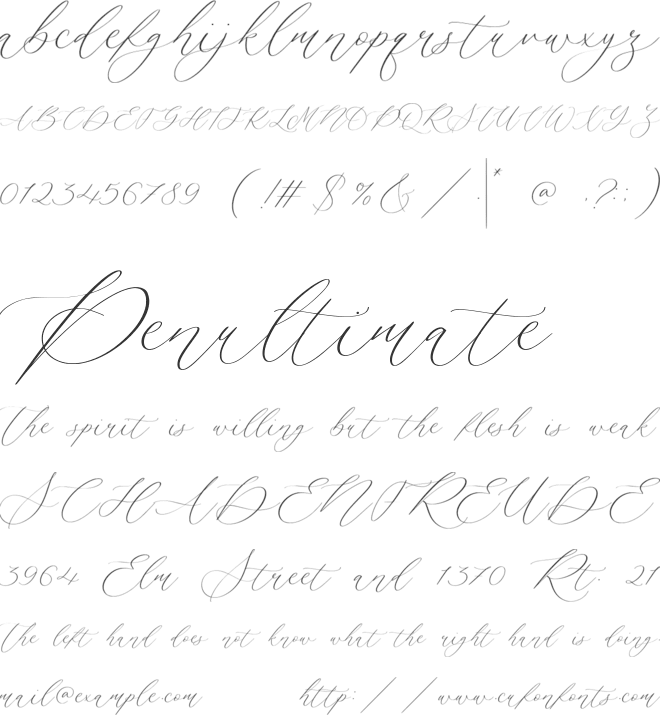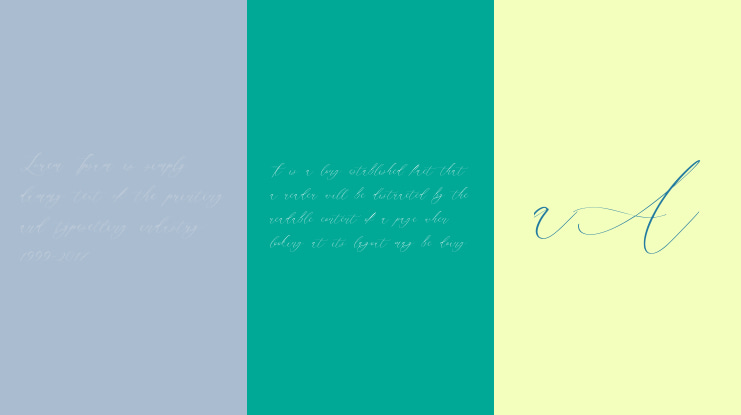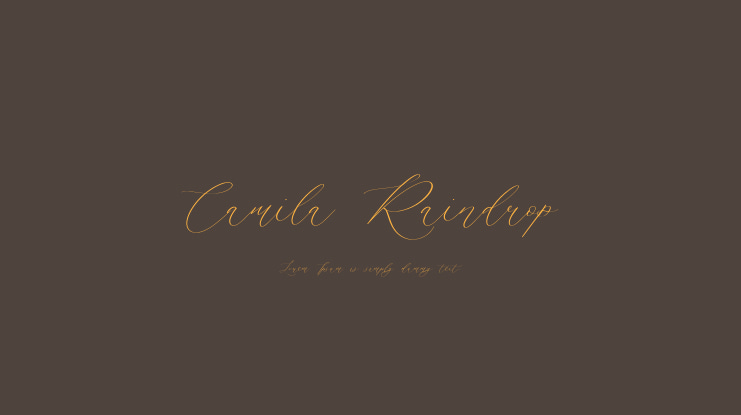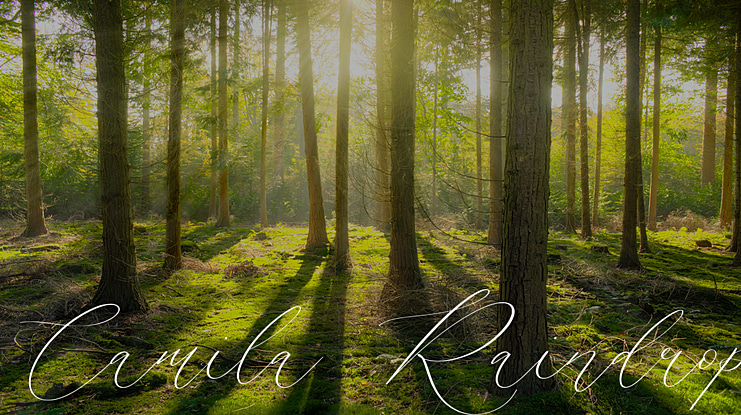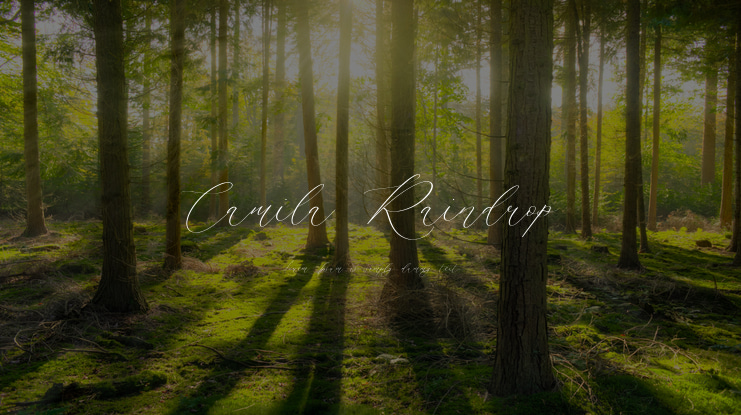
Camila Raindrop Font
Introducing by Letterative Studio : Camila Raindrop Font
Camila Raindrop is a Elegant Modern Calligraphy Font
Camila Raindrop is perfect for product packaging, branding project, megazine, social media, wedding, or just used to express words above the background.
Camila Raindrop also multilingual support